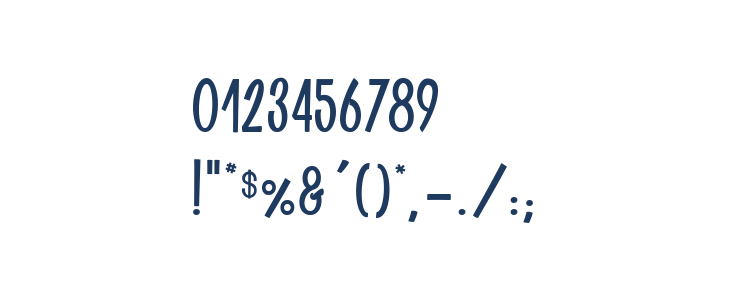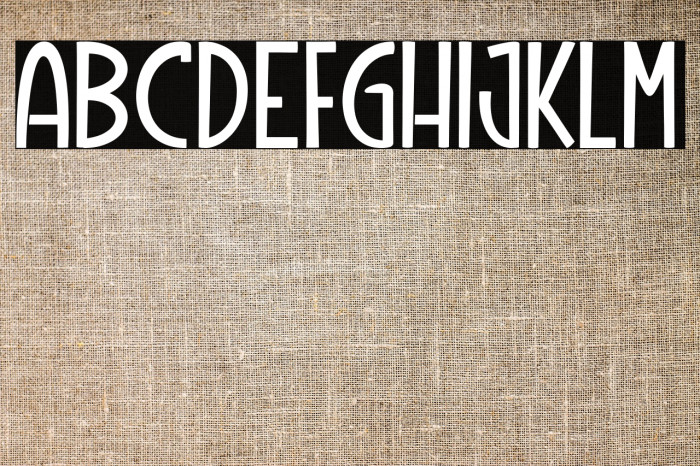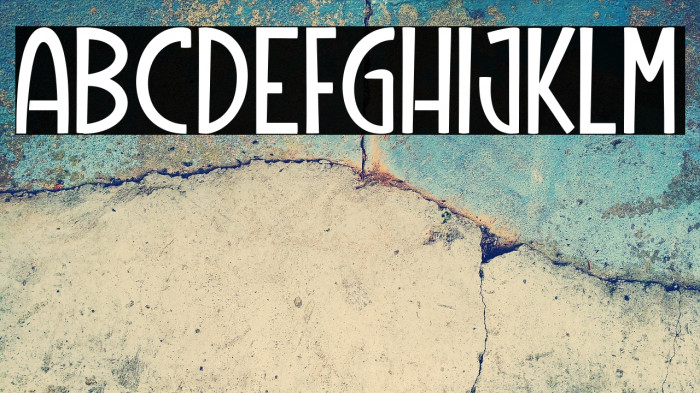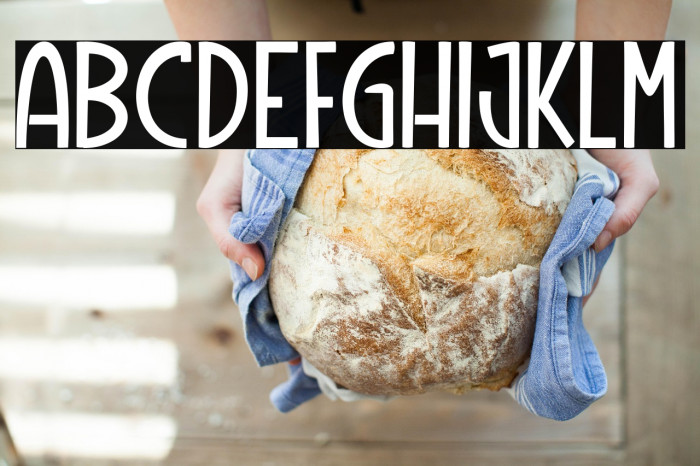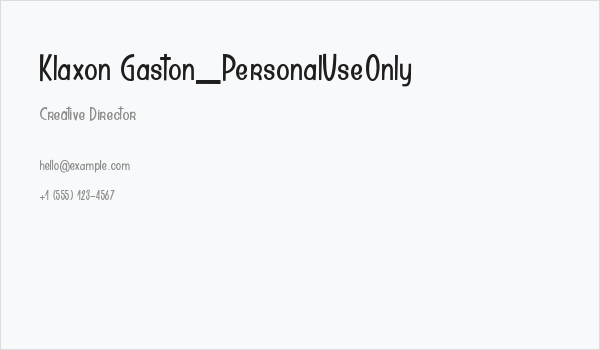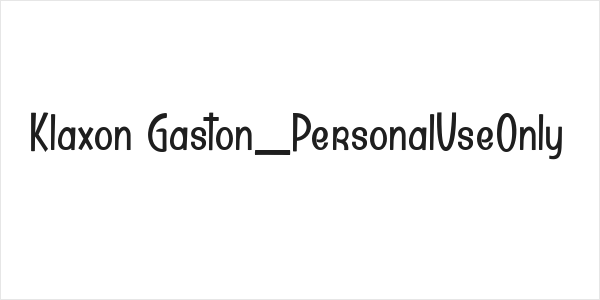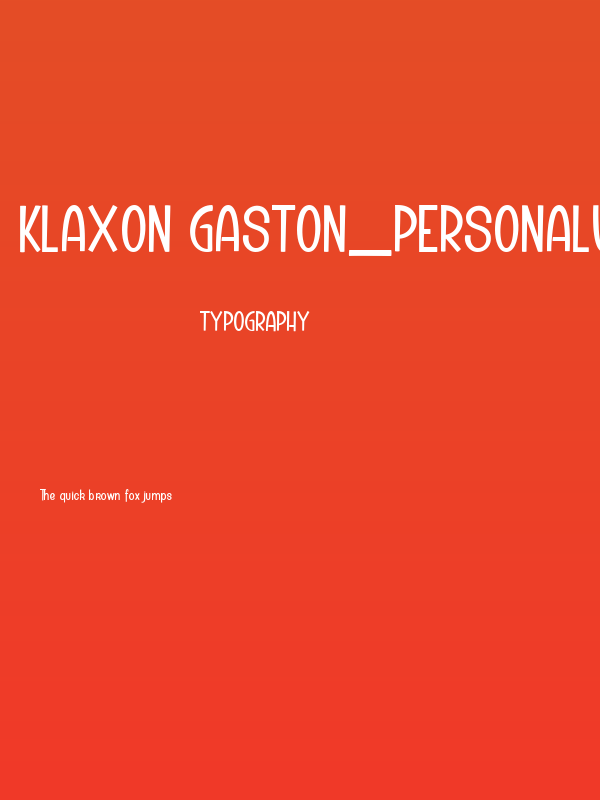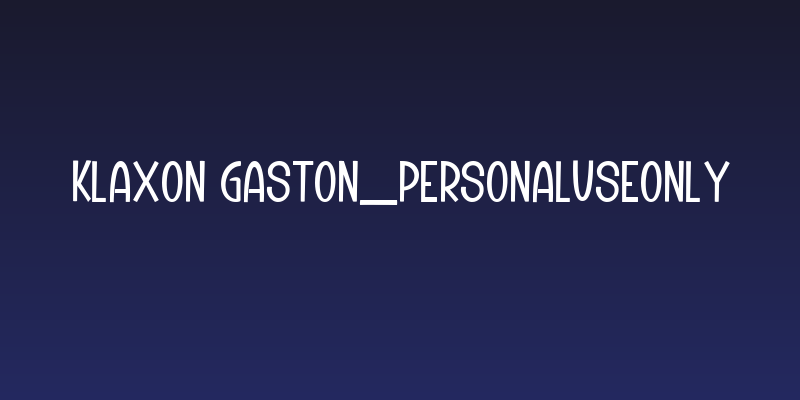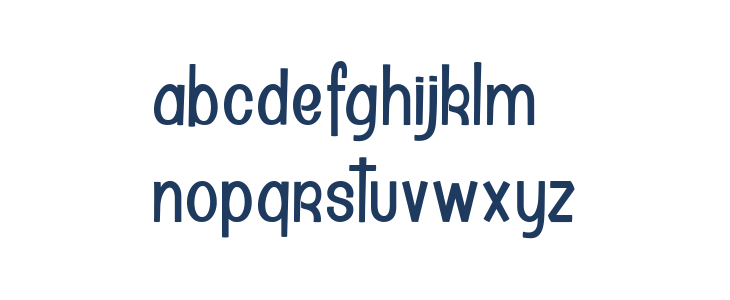
Klaxon Gaston_PersonalUseOnly Font
Klaxon Gaston_PersonalUseOnly Description
This font features a playful and quirky design, characterized by its bold and slightly irregular letterforms. The uppercase letters are tall and narrow, with a slight tilt that adds a dynamic feel. The lowercase letters maintain a consistent style, with rounded edges and a friendly appearance. The numerals are bold and easily readable, matching the overall whimsical style of the alphabet. Special characters are included, maintaining the same playful aesthetic. This font is ideal for projects that require a fun and informal touch, such as children's books, playful branding, or creative posters.